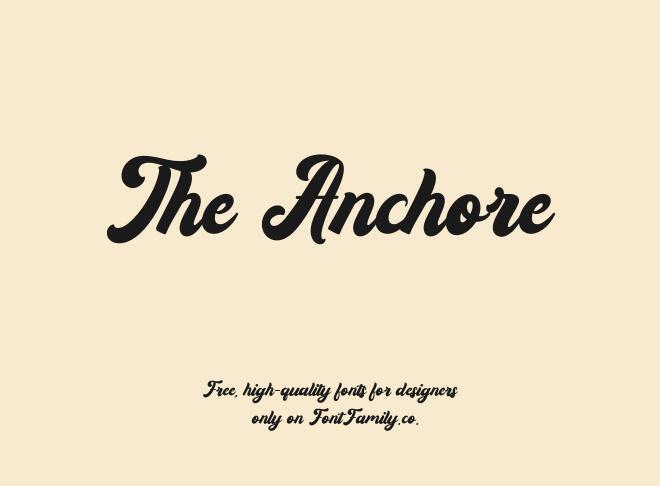
The Anchore Font
The Anchore Font is a striking, bold typeface with a rustic and vintage appeal. This font, with its strong and impactful characters, is reminiscent of retro signage and vintage posters, making it a perfect choice for brands with a nostalgic appeal. The font's bold strokes and well-rounded curves offer a visually pleasing contrast, giving it a unique and captivating charm. Its pronounced, display style makes it an excellent choice for headings, posters, logos, and any design that requires a bold statement. Compared to other fonts, The Anchore Font stands out for its rustic, retro charm and bold, eye-catching characters. This font is a great choice for designers looking to add a vintage, rustic appeal to their projects.